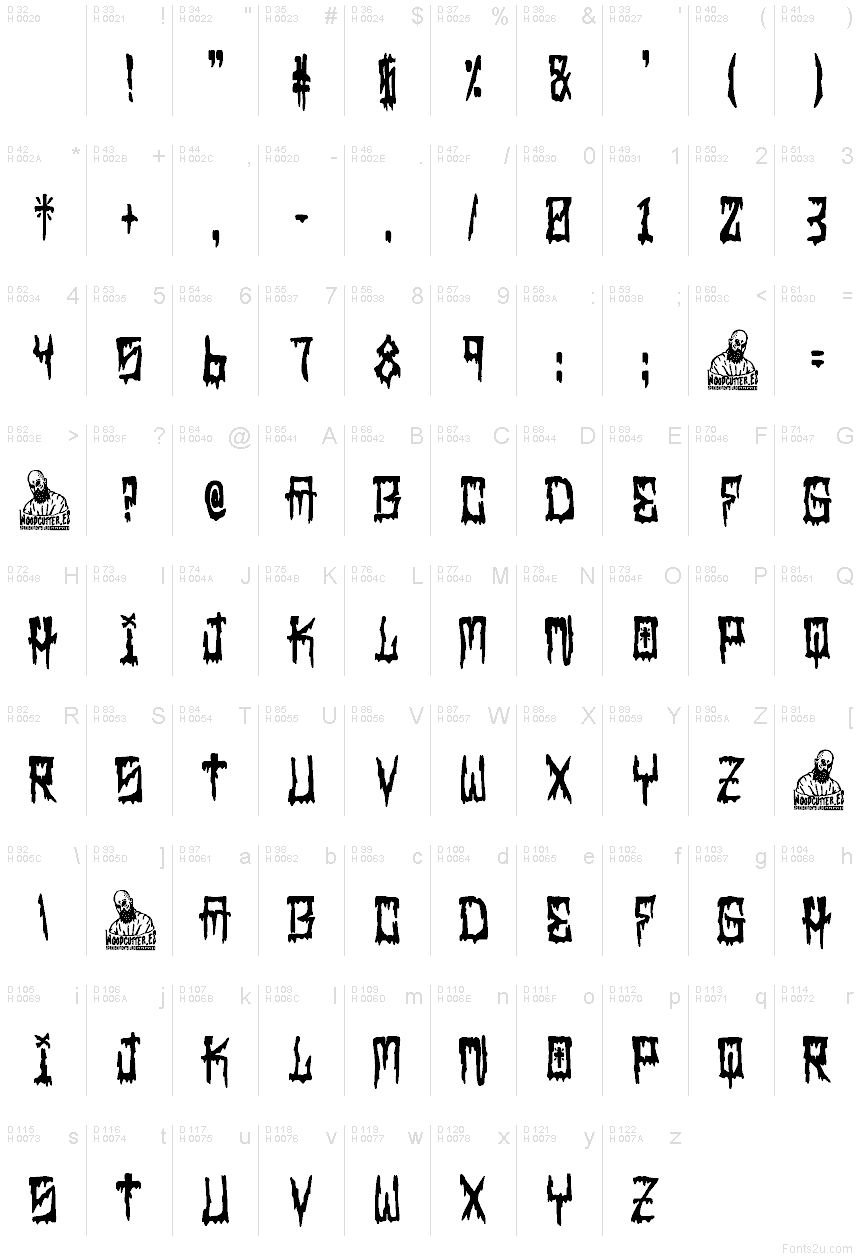
Latino Blood
Latino Blood font by Woodcutter is a free horror graffiti display font. Thick, blocky letters look soaked in inky drips, with rough, carved interiors that feel like wet paint sliding down a wall. The rhythm is jagged and loud, giving headlines a visceral, street‑level shock.
Using Latino Blood, you can push slasher posters, haunted‑house flyers, survival‑horror game titles, metal album art, streetwear graphics, and Halloween party invites into full-on scream mode. This free font shines at big sizes; keep tracking tight and pair it with a clean condensed sans to ground the chaos while the drips do the talking.